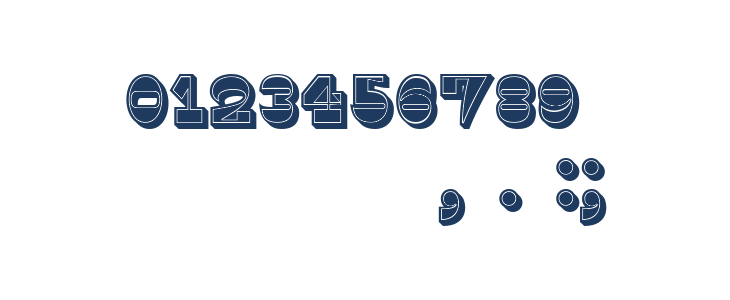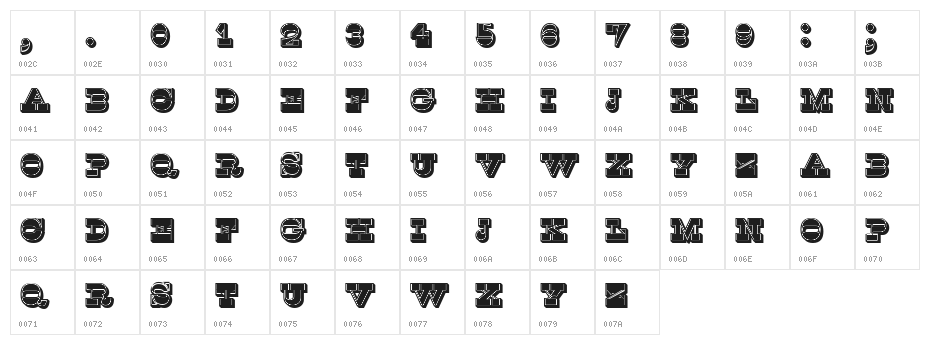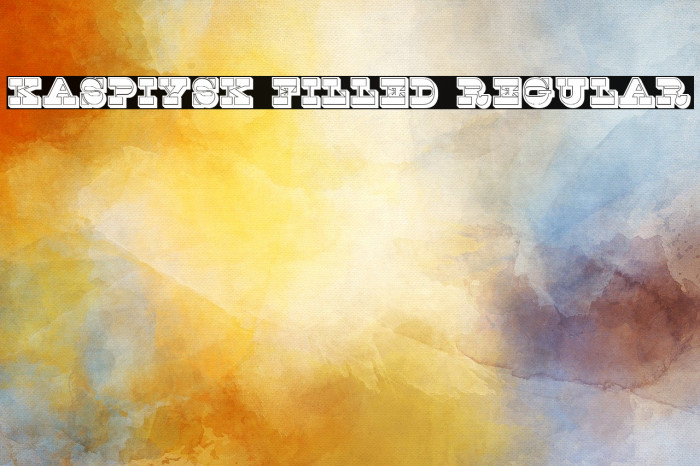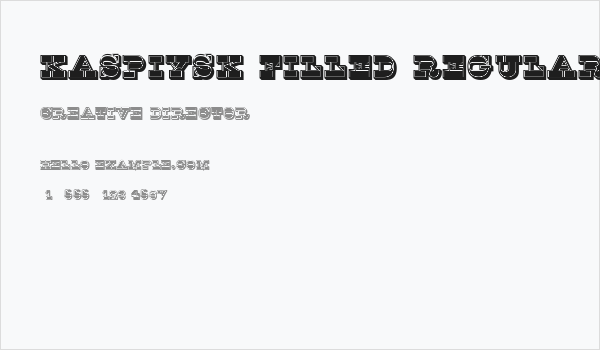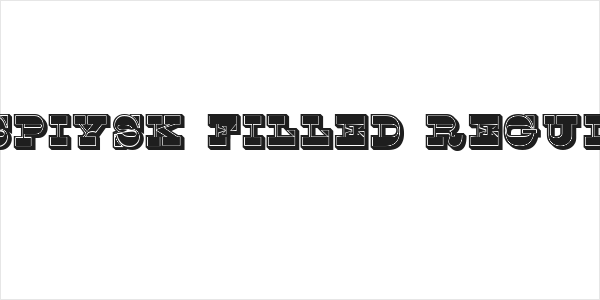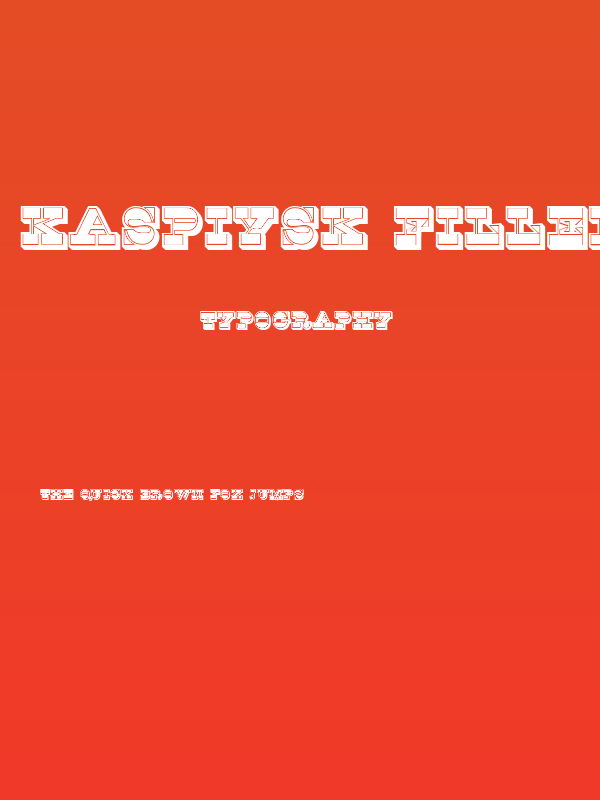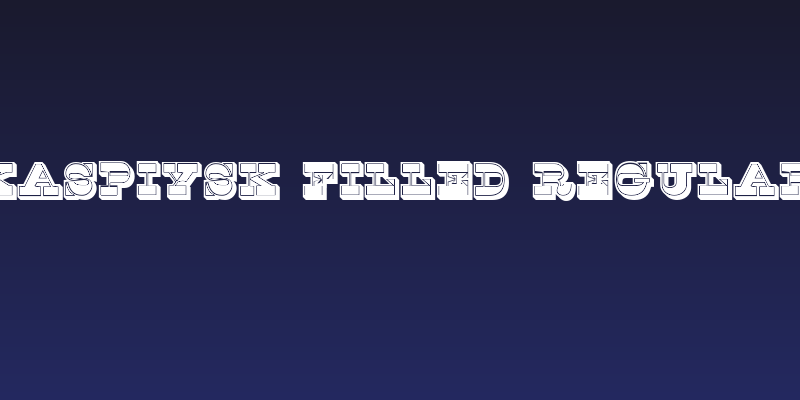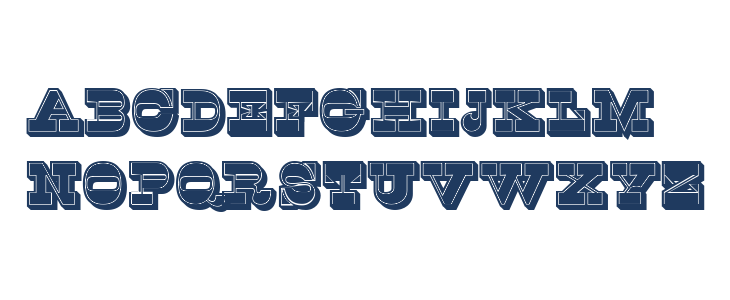
Kaspiysk Filled Regular Font
Kaspiysk Filled Regular Description
This font features a bold and striking design with a filled, three-dimensional appearance. The characters are outlined with a thick border, giving them a strong, impactful look. The geometric shapes and sharp angles create a sense of modernity and strength. The uppercase letters are uniform in height, while the numerals maintain a consistent style that complements the alphabet. The font's unique style makes it suitable for attention-grabbing headlines and titles. Its decorative nature adds a layer of visual interest, making it ideal for projects that require a bold statement.
| Proposed Projects | Ideal for posters, logos, and branding materials that require a bold and modern aesthetic. |